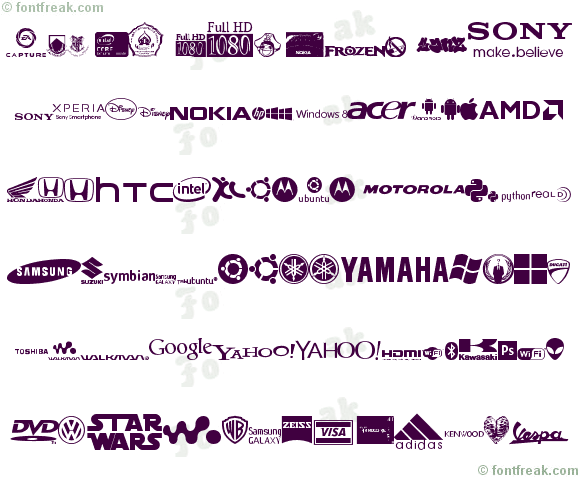
Logoz-Librariez by Ihsan Hasanudin is a distinctive display font designed to capture attention with its unique character. As a decorative typeface, it features a bold and playful style that is particularly suited for projects that require a strong visual impact. The font showcases varied stroke weights and a creative approach to letterforms, making it ideal for branding and design work that seeks to convey a sense of personality and innovation.
The visual characteristics of Logoz-Librariez include dynamic shapes and a slightly irregular style, which adds an element of fun and creativity. The lettering appears to be inspired by logos from various sources, giving it a familiar yet unique aesthetic. The spacing between characters is well-considered, ensuring readability while maintaining a lively appearance. This font is not just about aesthetics; it carries the essence of the brands and logos it represents, each being a trademark of its respective company.
Best use cases for Logoz-Librariez include creating striking movie posters, designing vibrant restaurant menus, producing eye-catching promotional materials, and developing engaging social media graphics. It is particularly appealing to graphic designers, small business owners, and content creators looking to make a statement without compromising on style.